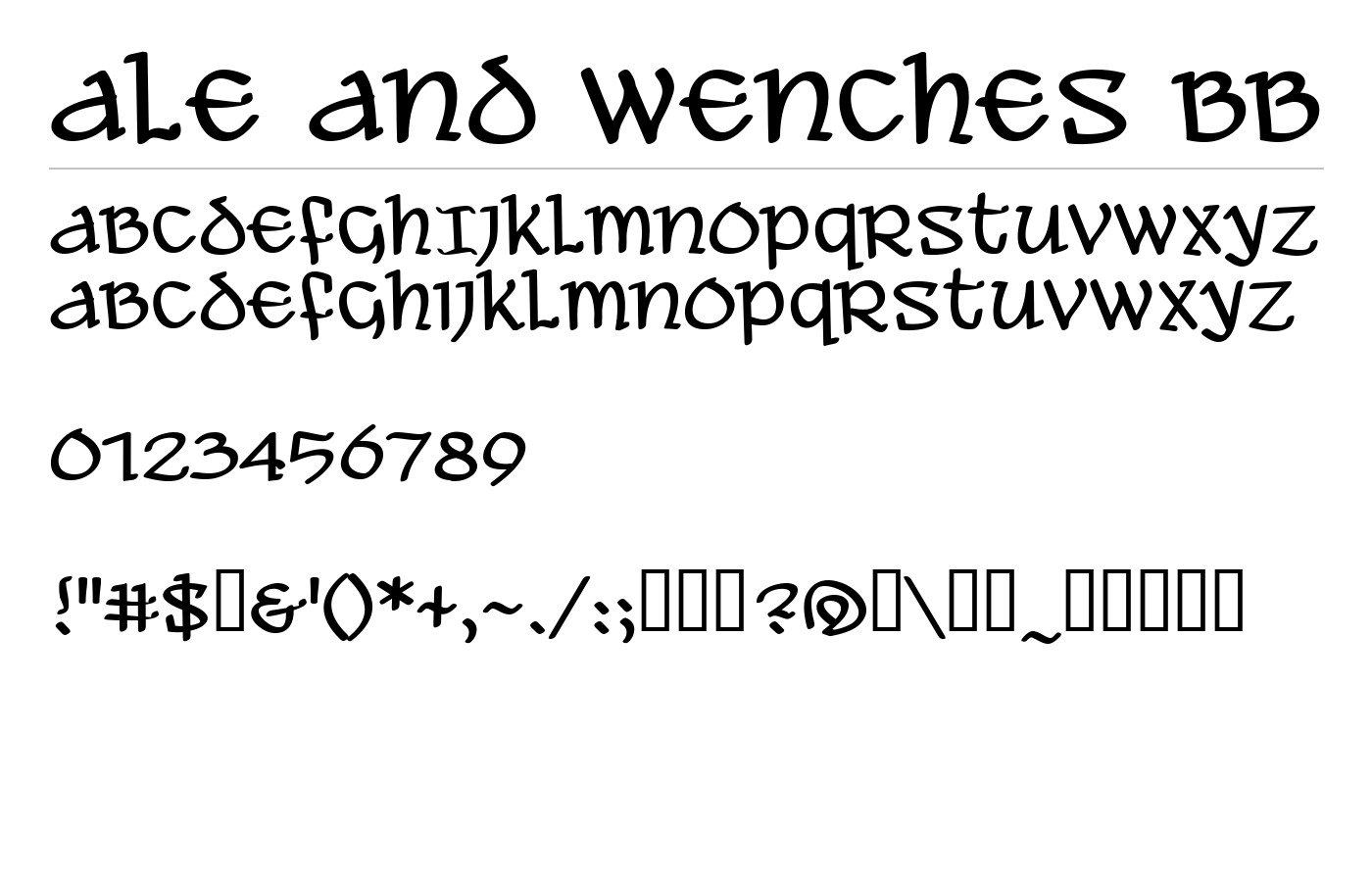
Ale and Wenches BB is a whimsical, hand-drawn serif font with charming irregular strokes and playful curves, evoking a medieval or fantasy tavern vibe. Its lively, slightly uneven letterforms and moderate contrast create a friendly, rustic feel perfect for themed events, games, or creative branding that wants to convey warmth and character. This font works best in headlines, logos, and decorative uses where a touch of personality and informality is desired.
Ale and Wenches BB Font